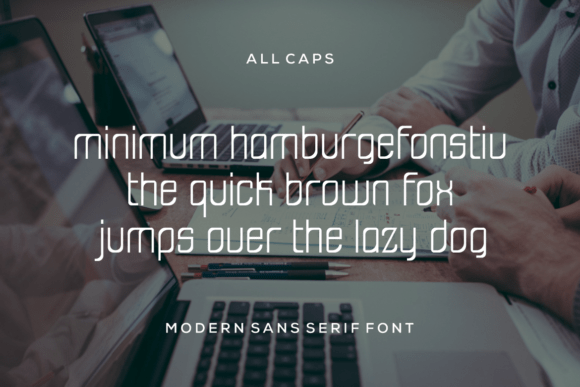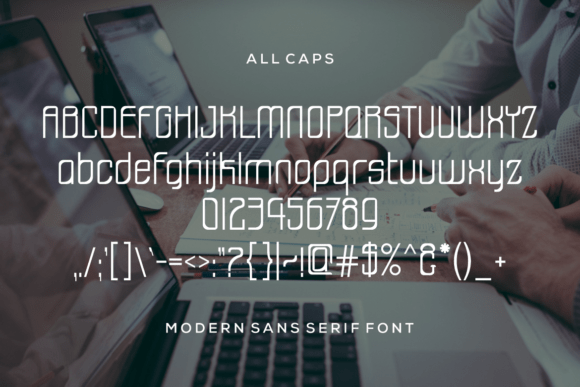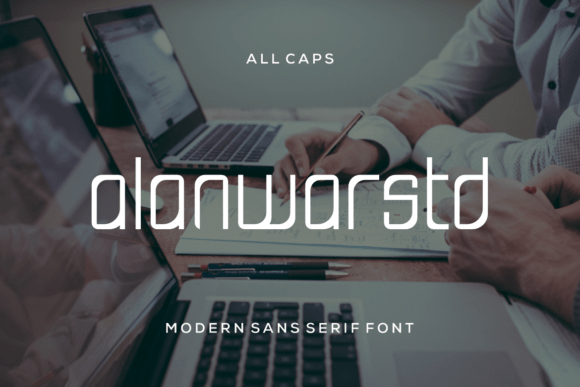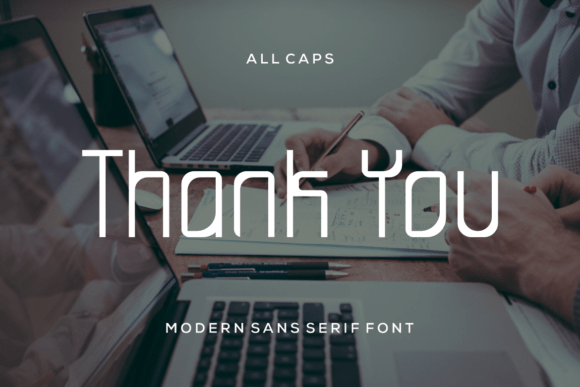
Introducing Colaborating Font: The Modern Sans Serif for Creative Minds
In the world of design, fonts play a crucial role in communicating messages, evoking emotions, and setting the tone for a brand or project. With the vast array of fonts available, finding the perfect one that balances style, readability, and versatility can be a daunting task. This is where Colaborating Font comes into play – a modern sans serif font designed to elevate your designs with its playful flair and attention-grabbing charm.
What is Colaborating Font?
Colaborating is a contemporary sans serif font that exudes a sense of modernity and sophistication. Its clean lines, rounded edges, and balanced proportions make it an ideal choice for a wide range of design applications, from digital platforms to print materials. Whether you’re a designer, craftsperson, or simply a DIY enthusiast, Colaborating Font offers the perfect blend of style and functionality.
Key Features of Colaborating Font
- Modern Display Font: Colaborating Font boasts a modern display font style that is sure to turn heads. Its sleek design and playful undertones make it perfect for headlines, titles, and attention-grabbing text.
- Playful Flair: What sets Colaborating apart from other sans serif fonts is its playful flair. The font features subtle rounded edges and a friendly demeanor, making it approachable and engaging.
- Versatile and Readable: Colaborating Font is designed to be versatile and readable across various mediums, including digital and print. Its clear lettering and balanced spacing ensure that your message is conveyed effectively, whether on a website, social media, or print materials.
Use Cases for Colaborating Font
Colaborating Font’s versatility makes it suitable for a wide range of design projects, including:
- Logos and Branding: Create a lasting impression with Colaborating Font’s modern and playful style, perfect for logos, business cards, and brand identity materials.
- Headlines and Titles: Use Colaborating Font to craft attention-grabbing headlines, titles, and subtitles that elevate your content and draw readers in.
- Digital and Print Materials: From website headers and social media graphics to brochures, posters, and flyers, Colaborating Font is the perfect choice for any design project.
Benefits of Using Colaborating Font
Colaborating Font is a game-changer for designers, craftspersons, and DIY enthusiasts looking for a modern sans serif font that combines style, versatility, and readability. With its playful flair and attention-grabbing charm, Colaborating Font is the perfect choice for a wide range of design projects. Elevate your designs, communicate your message effectively, and add a dynamic touch to your brand with Colaborating Font.